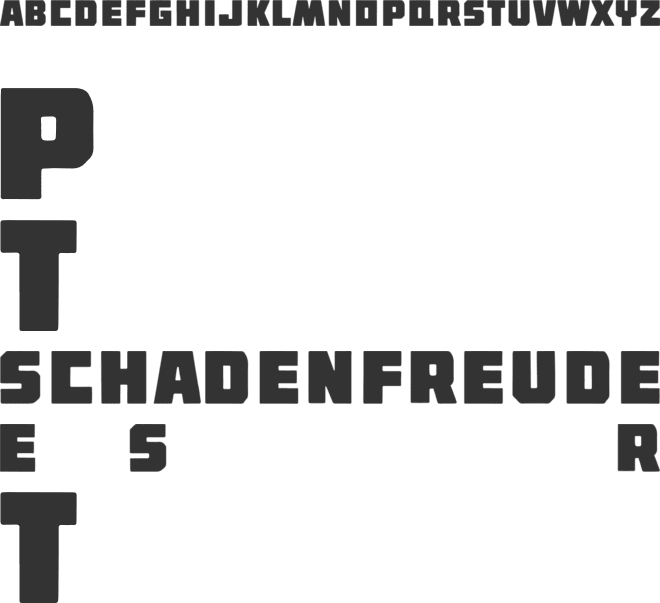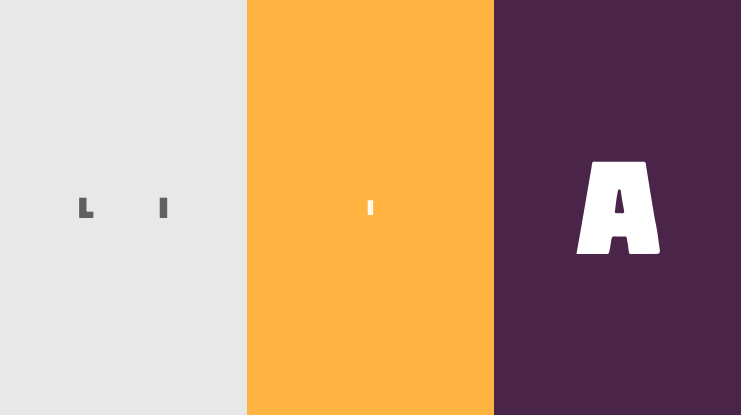
๐จ Font Name: BOSSON by Minimalist Art Studio
๐จ Font Description: Voltage is a tall, condensed sans serif font in Regular and Italic stylesโperfect for bold headlines, modern branding, tech interfaces, and minimalist layouts; free for subscribers and built to energize your design flow.